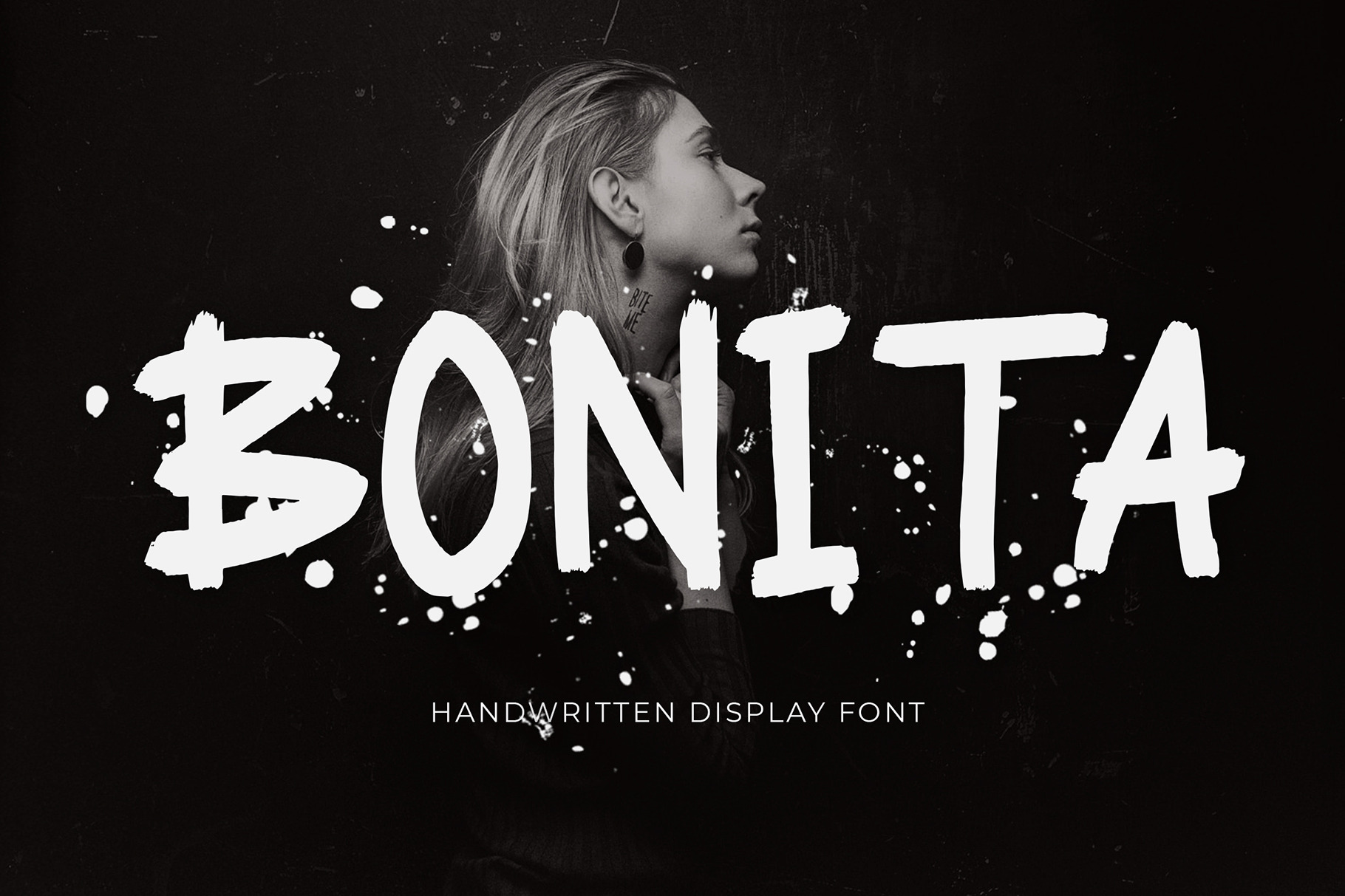
Bonita Handwritten Display Font
Bonita is handwritten display font that perfect for branding projects, logo, tshirt designs, social media posts, advertisements, product packaging, product designs, label, watermark, invitation, stationery and any projects